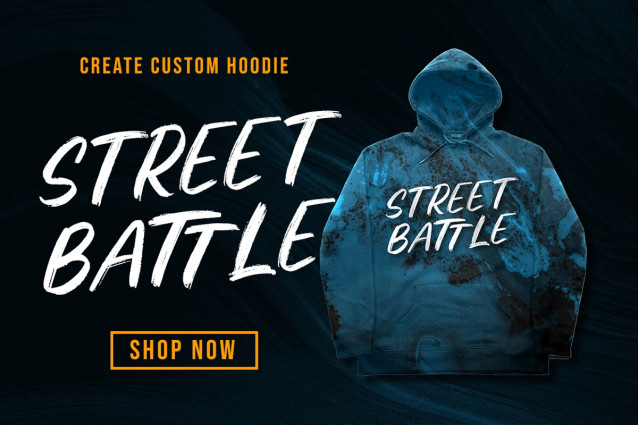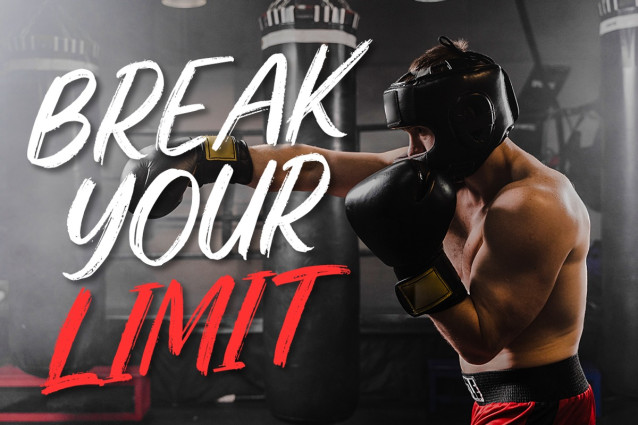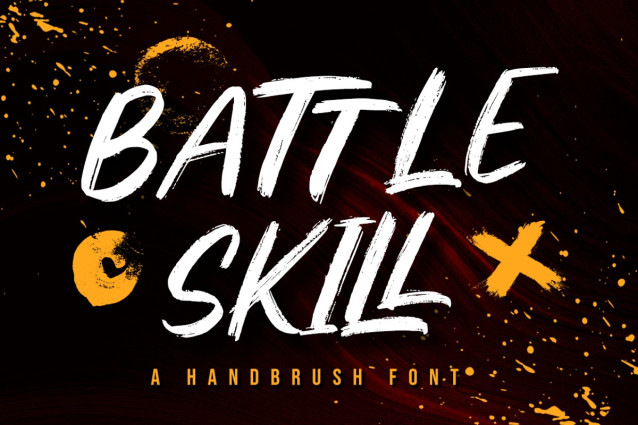
Battle Skill Font
Battle Skill Font is a new modern brush font, incredibly adaptable to all sorts of designs. It is suitable for any branding, product packaging, invitation, quote, t-shirt, label, poster, logo that you wish to create.